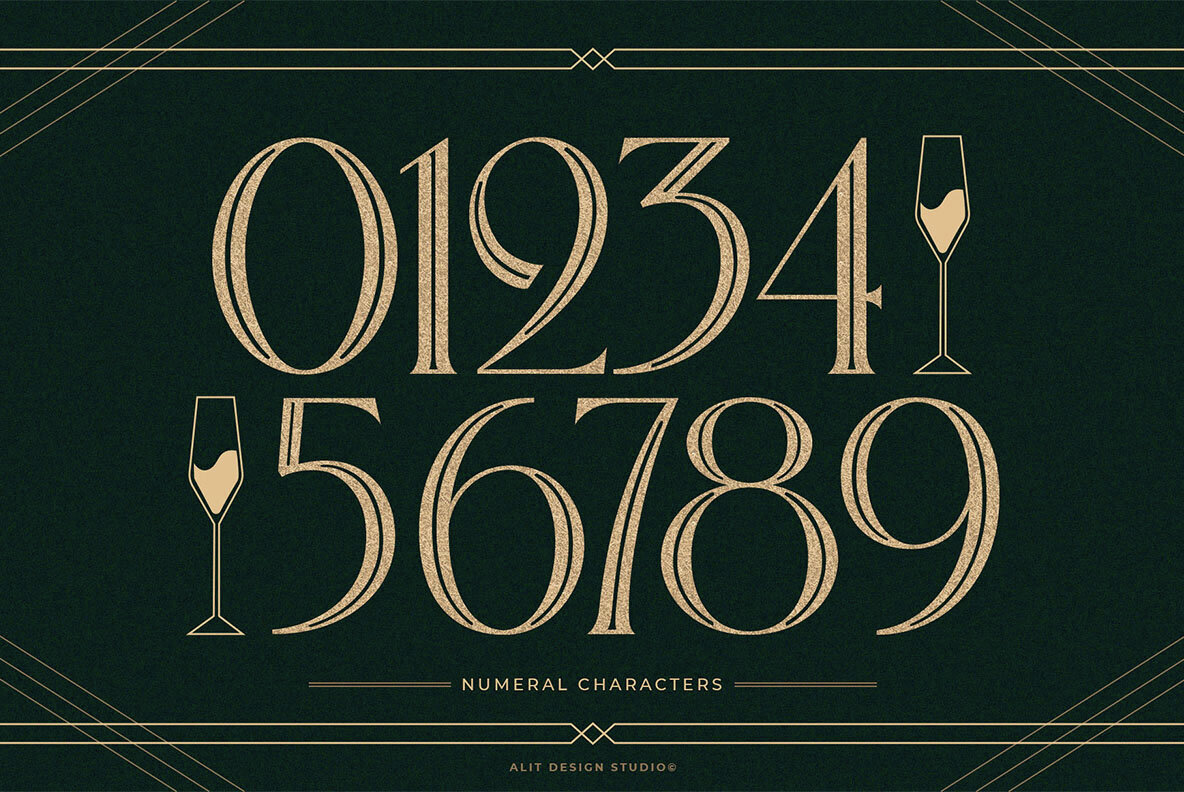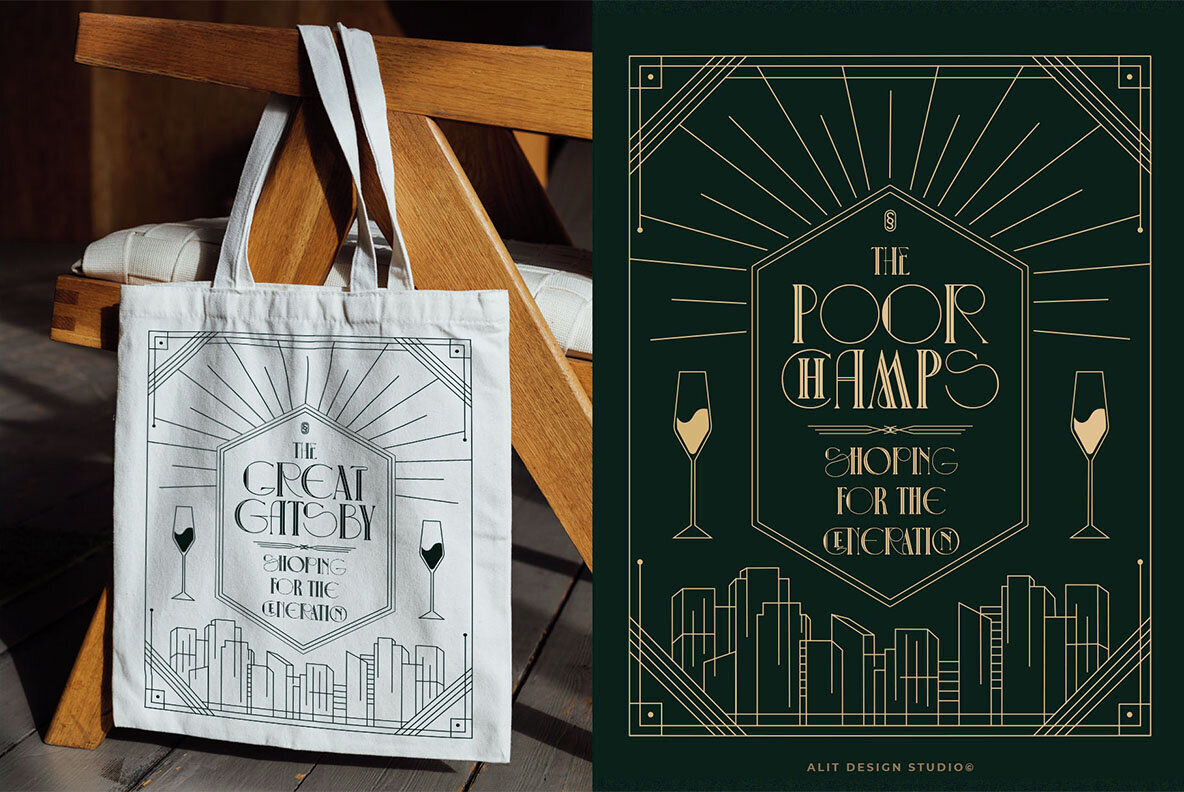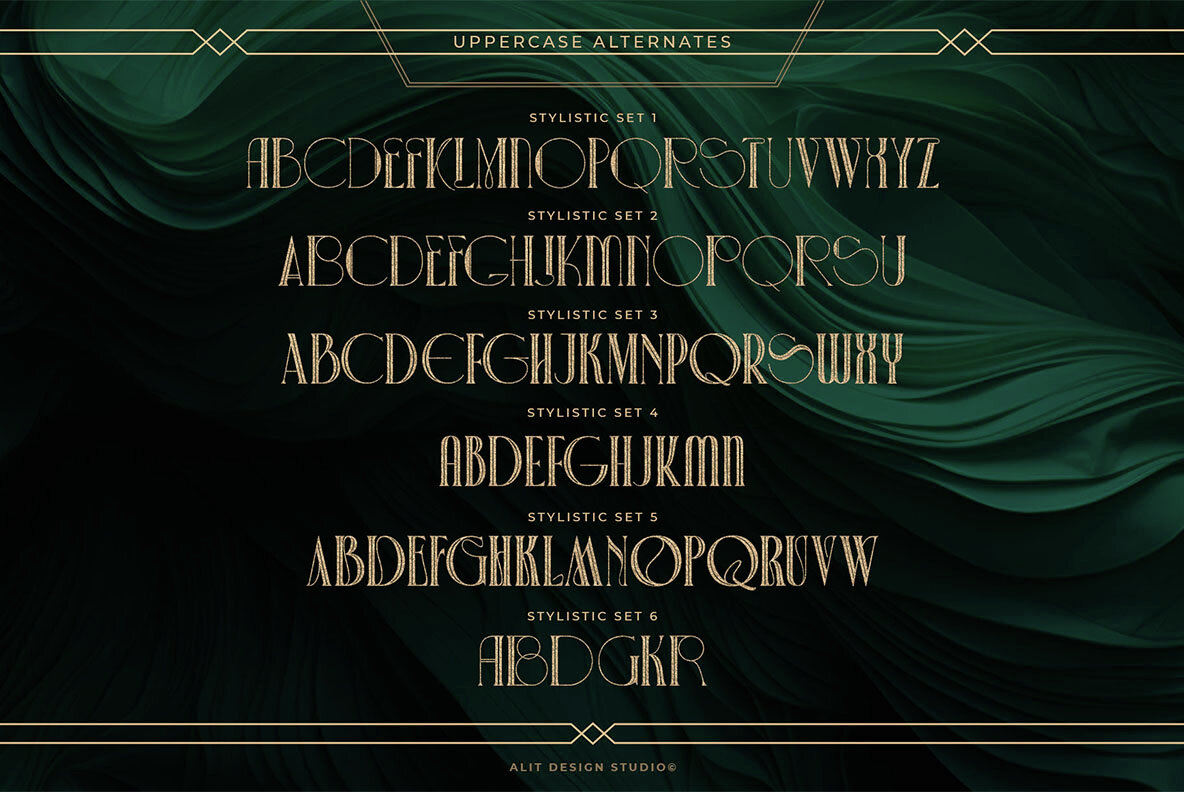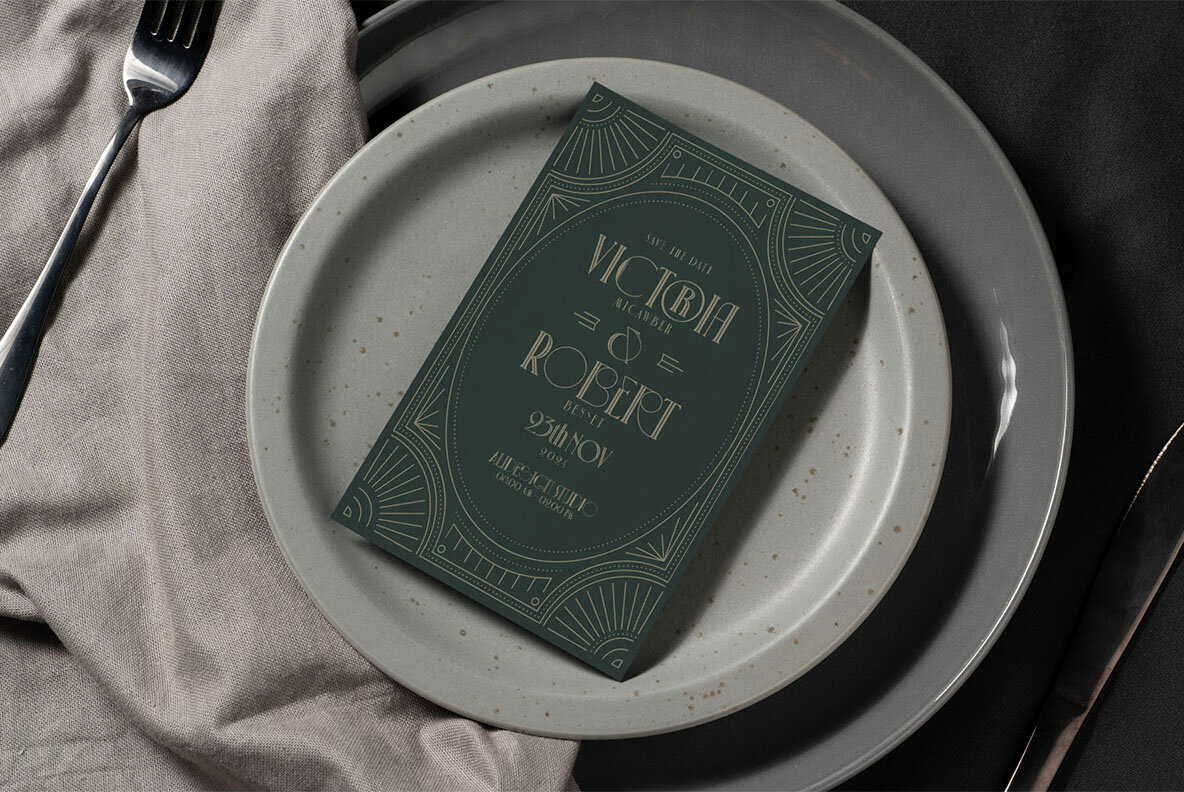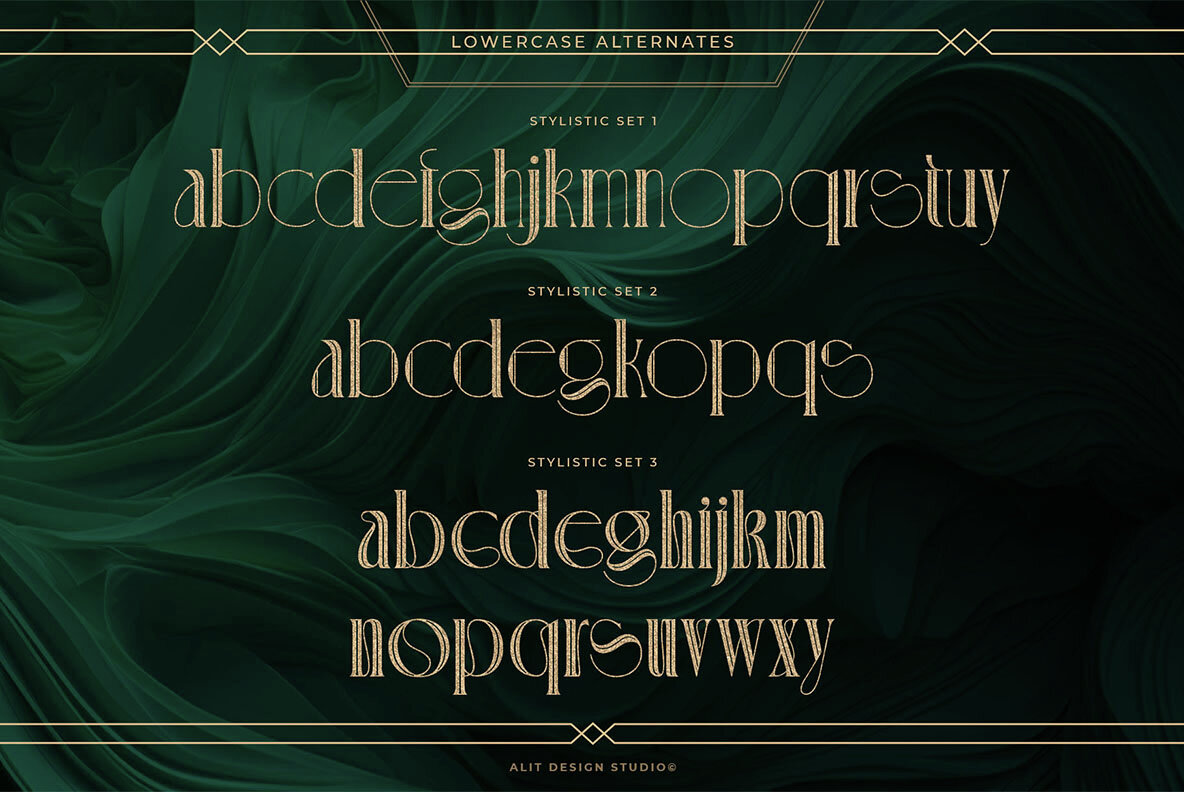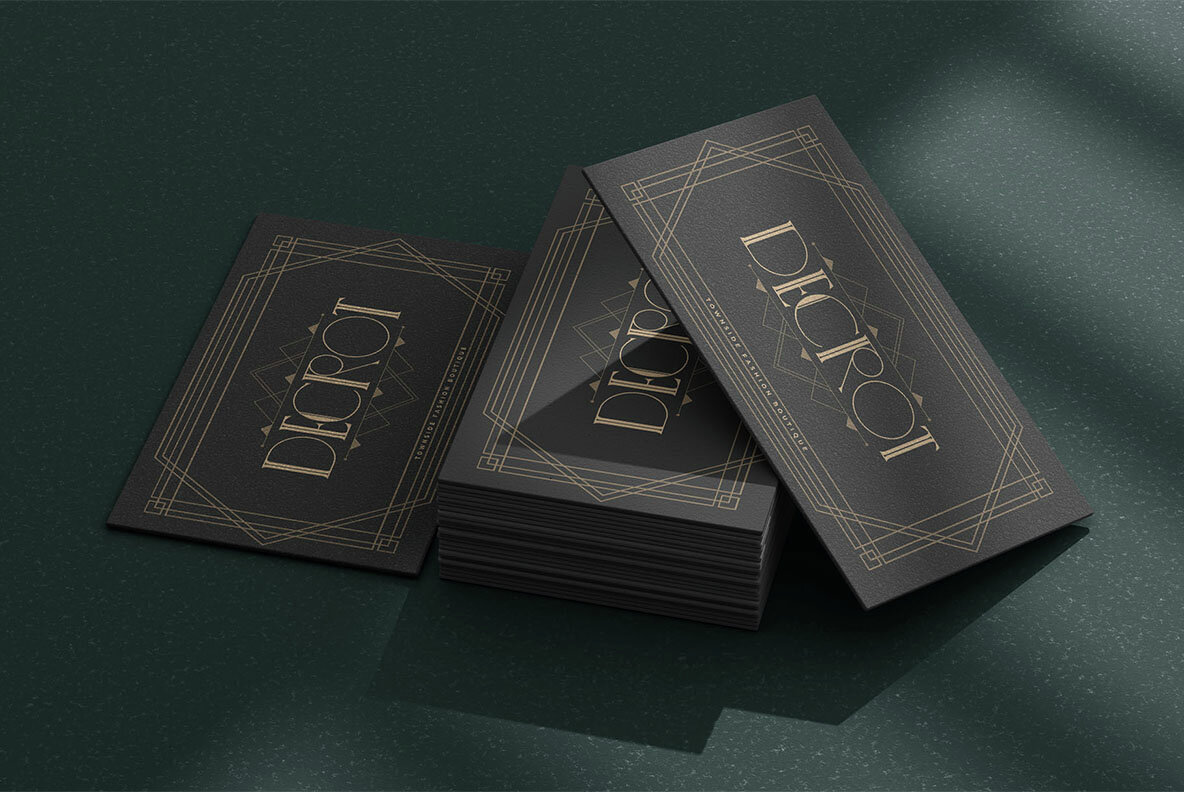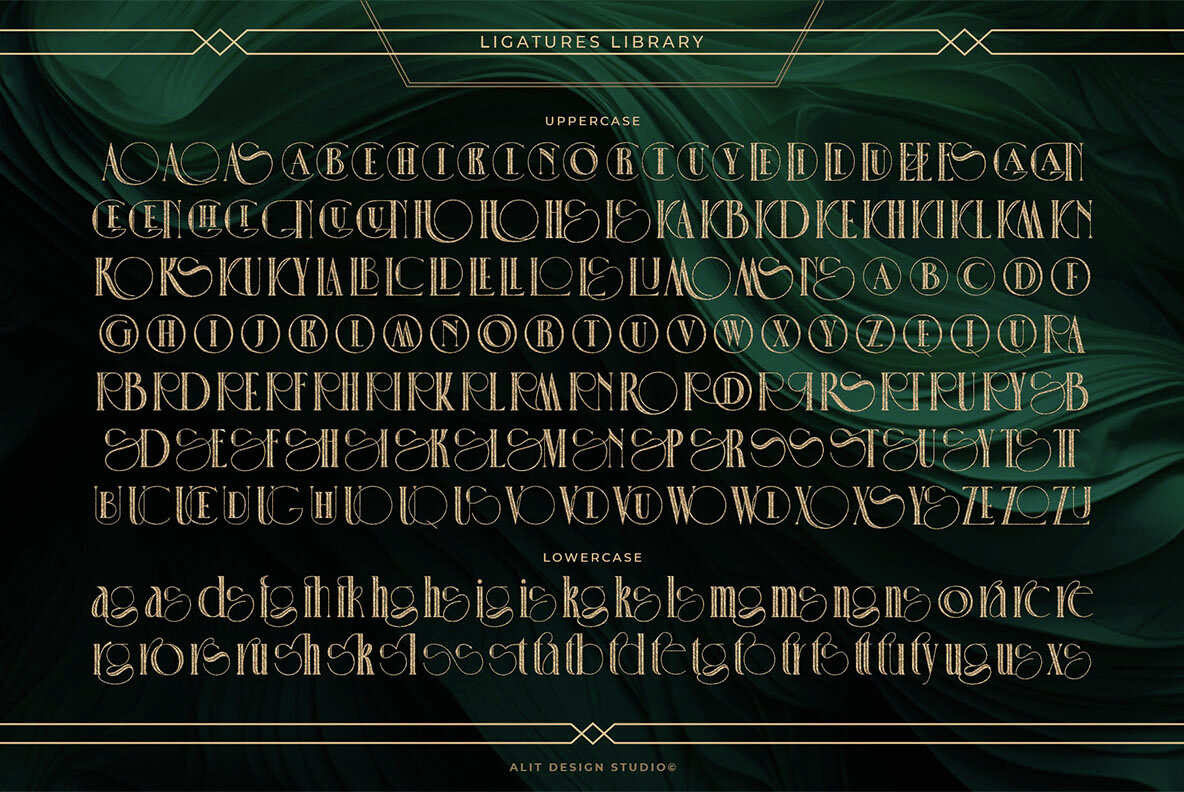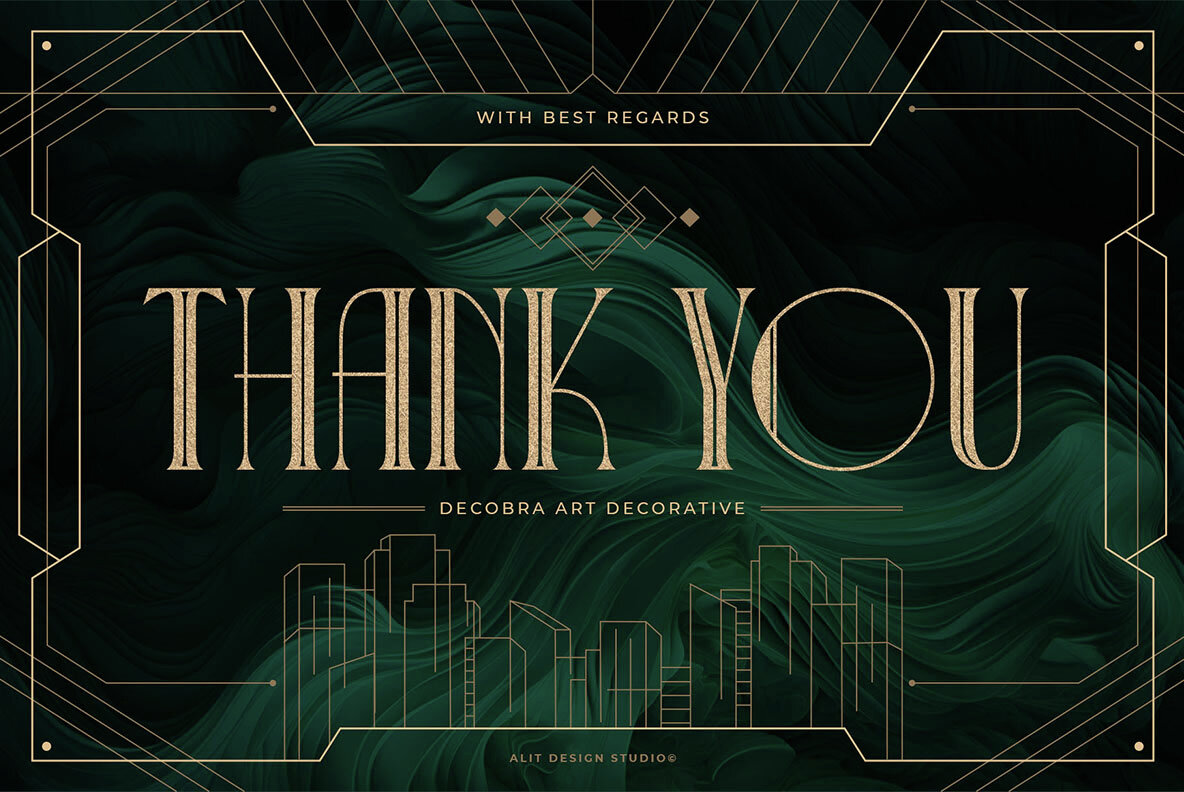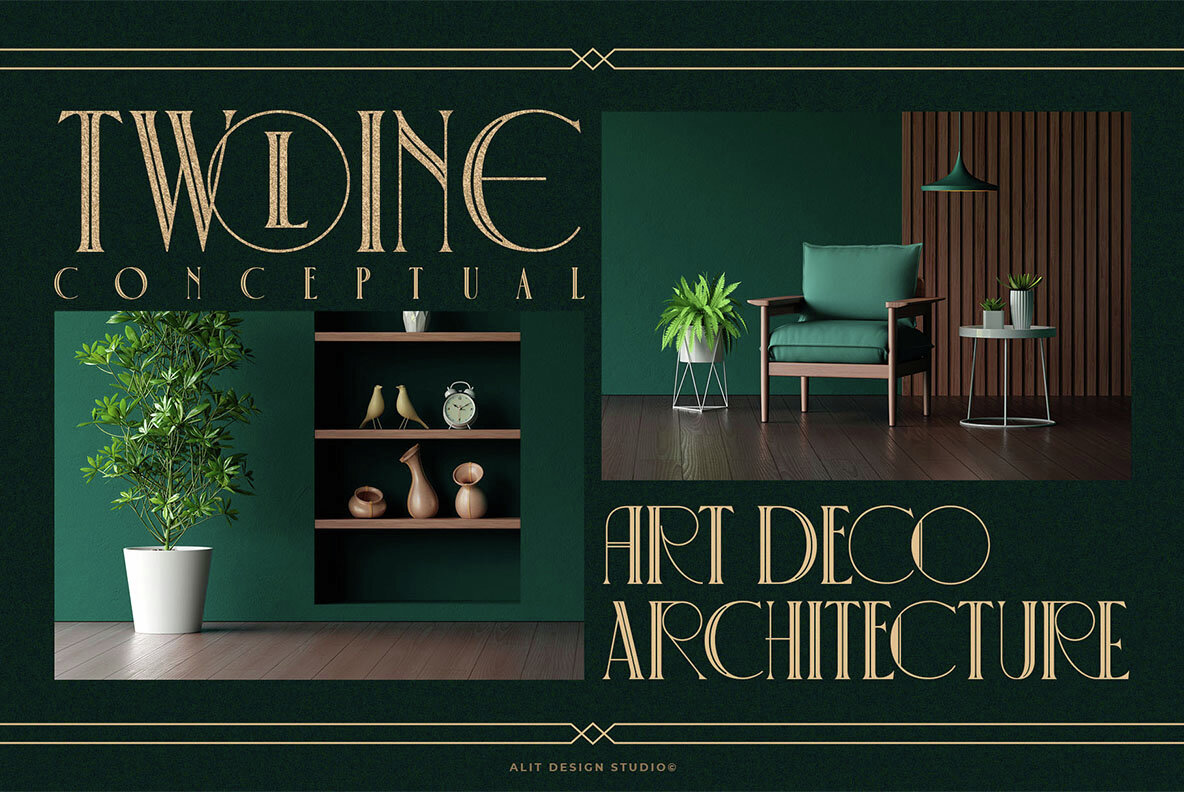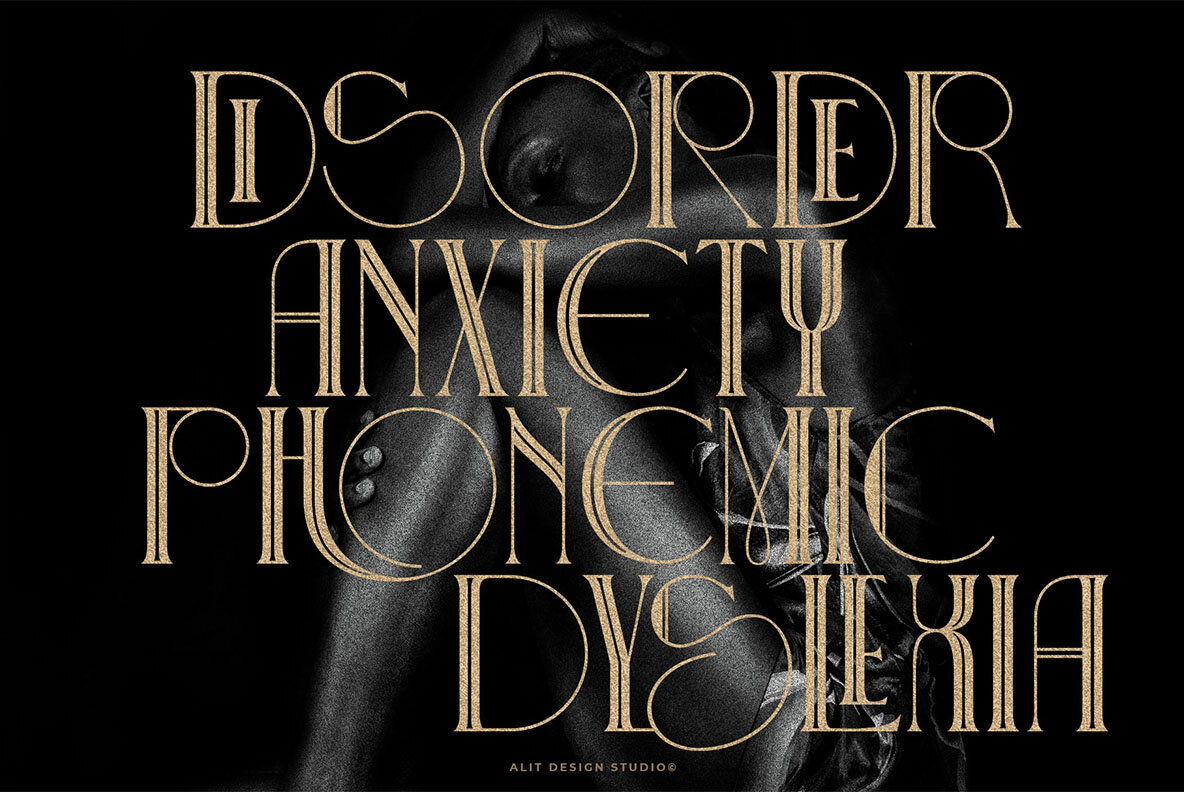
Decobra Font
Decobra Regular
Step into the golden era of design with Decobra, a one-of-a-kind Art Deco typeface that exudes elegance and modern sophistication. Perfectly balancing dynamic thick and thin strokes, Decobra’s charm lies in its striking two-line body, making it an extraordinary choice for vintage-inspired yet contemporary projects. Features That Inspire Creativity: Whether you're crafting luxurious branding, art deco-inspired posters, elegant invitations, or editorial layouts, Decobra Art Deco Typeface ensures your design leaves an unforgettable impression. Rediscover the timeless glamour of Art Deco with Decobra—a typeface that bridges the past and future in every stroke.